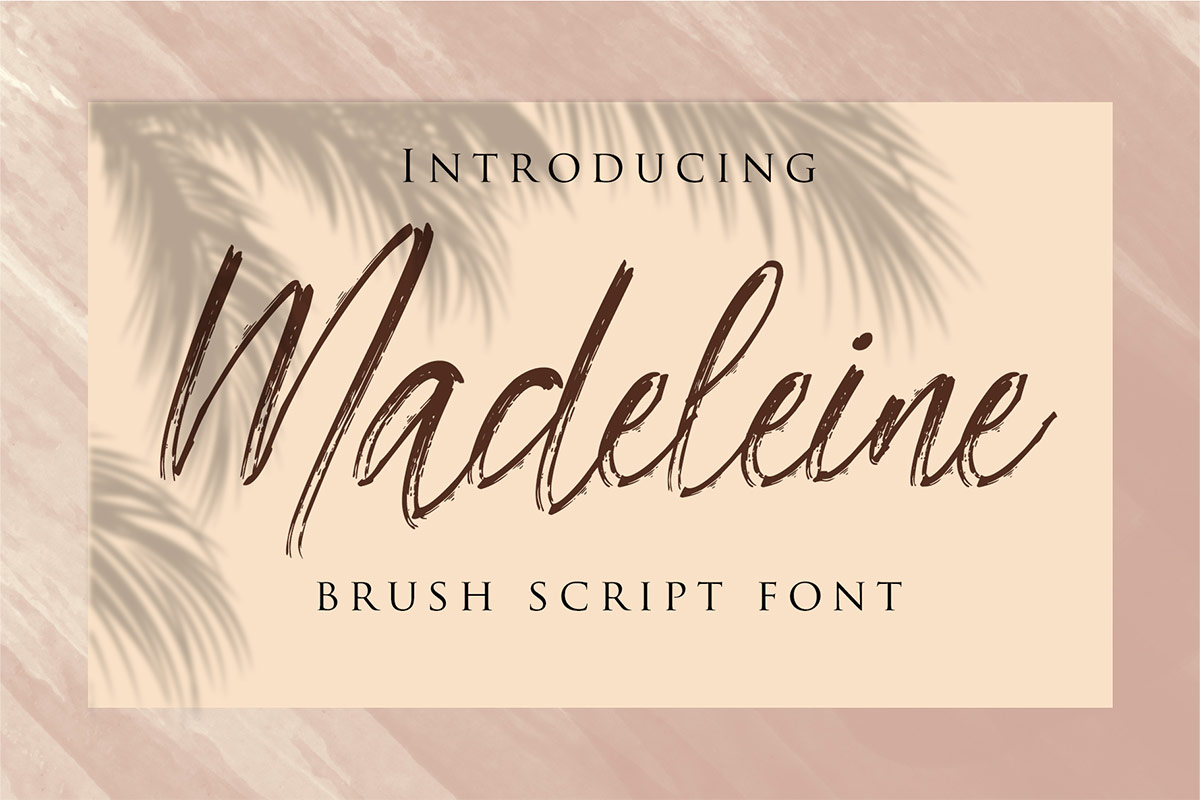
Madeleine – Brush Script Font
The Madeleine Brush Script Font is a bold and expressive typeface that embodies the charm and energy of hand-painted brush strokes. With its dynamic and fluid letterforms, this font adds a touch of creativity and authenticity to your designs, making it perfect for logos, branding, posters, and other projects that require a distinct and artistic look.
1. Bold and Expressive Style: The Madeleine Font exudes a bold and dynamic aesthetic. Its brush strokes capture the energy and spontaneity of hand-painted lettering, creating a vibrant and captivating look for your designs.
2. Brush Script Design: The font’s brush script style adds an organic and artistic flair to your typography. It celebrates the uniqueness and imperfections of brush strokes, bringing a sense of authenticity and creativity to your designs.
3. Versatile Application: This font is versatile and well-suited for various design projects that aim to evoke a sense of artistic expression. Use it in logos, branding, posters, social media graphics, and more to add a touch of creativity and flair to your designs.
4. Uppercase and Lowercase Letters: The font includes both uppercase and lowercase letters, providing flexibility and creative freedom in your designs. Mix and match the cases to create visually appealing and balanced typography.
5. Ligatures and Swashes: The Madeleine Font offers a range of ligatures and swashes that enhance the visual interest of your text. These special characters create unique connections between letters and decorative flourishes, allowing you to create artistic and personalized typography.
6. Punctuation and Symbols: In addition to the alphabet, the Madeleine Font includes a comprehensive set of punctuation marks, numerals, and common symbols. This ensures consistency and ease of use when incorporating the font into your design projects.
Infuse your designs with the bold and artistic vibe of the Madeleine Brush Script Font. Let its hand-painted brush strokes bring a touch of creativity and authenticity to your logos, posters, and branding. Embrace the dynamic beauty of this font and create designs that stand out with their expressive and artistic flair.